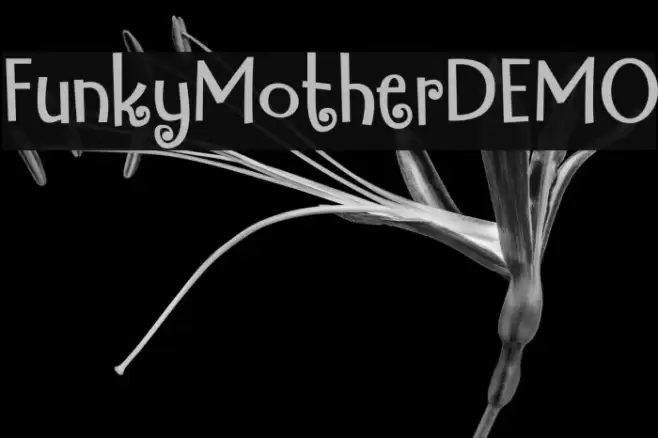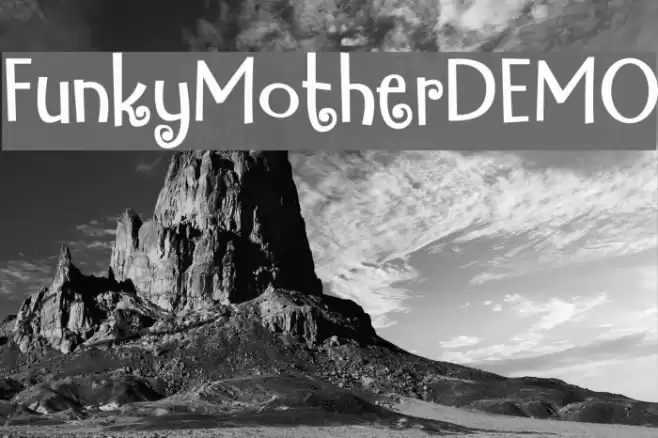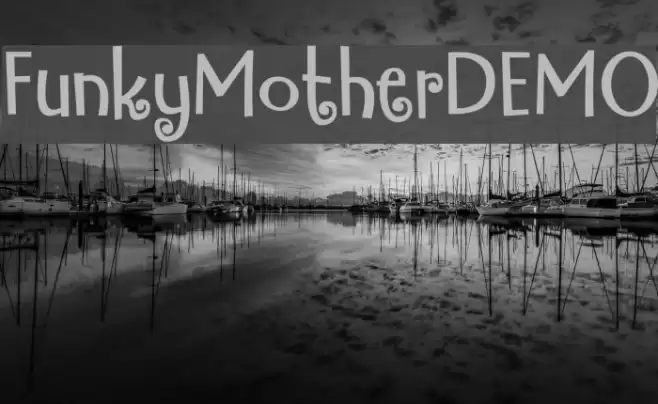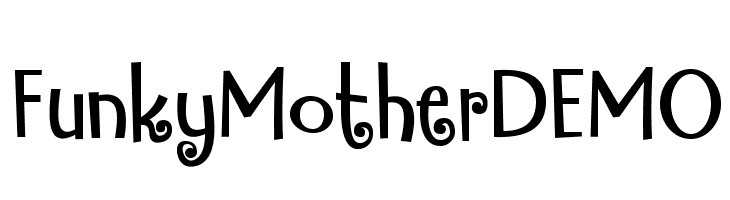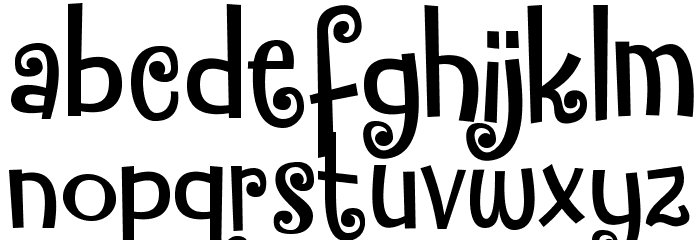
FunkyMotherDEMO Font
FunkyMotherDEMO Description
This font features a playful and whimsical design, characterized by its unique and quirky letterforms. The uppercase letters have a mix of straight and curved lines, with some characters incorporating decorative swirls and loops. The lowercase letters continue this playful theme, with exaggerated ascenders and descenders that add to the font's charm. The numbers and special characters maintain the same lively style, making the font suitable for creative and fun projects. The overall appearance is bold and eye-catching, perfect for drawing attention.
A playful and whimsical font with quirky, decorative letterforms from Curly fonts.
- Proposed Projects: Ideal for children's books, party invitations, playful branding, and creative posters.
- Overall Style: Playful, Whimsical, Decorative